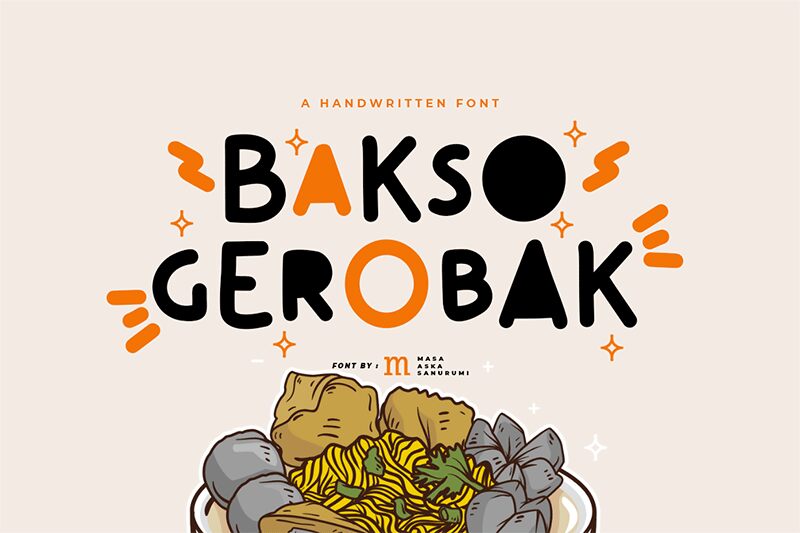
Bakso Gerobak
Bakso Gerobak breathes life into every word with its playful and handwritten charm, crafted by the talented Masa Aska Sanurumi. This font dances between creativity and legibility, making it an ideal choice for designers aiming to inject personality into their work.
Perfect for greeting cards that need a touch of whimsy or headlines that demand attention, Bakso Gerobak's clean lines and exquisite feel enhance any project. Whether you're looking to captivate children with storybook magic or engage a trendy audience with artisanal flair, this font's versatility adapts seamlessly across various design landscapes.
Embrace Bakso Gerobak for a distinctive typographic voice that resonates with originality and spirited character.